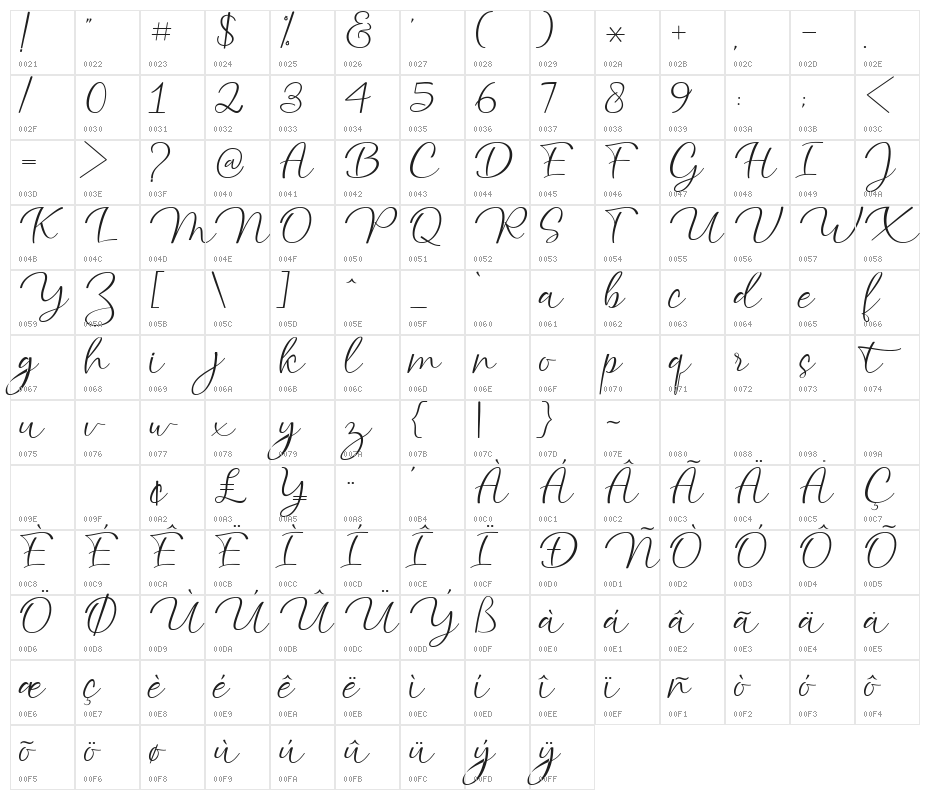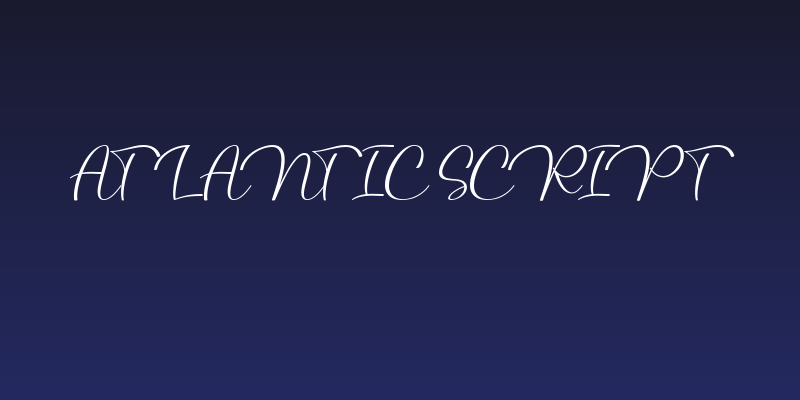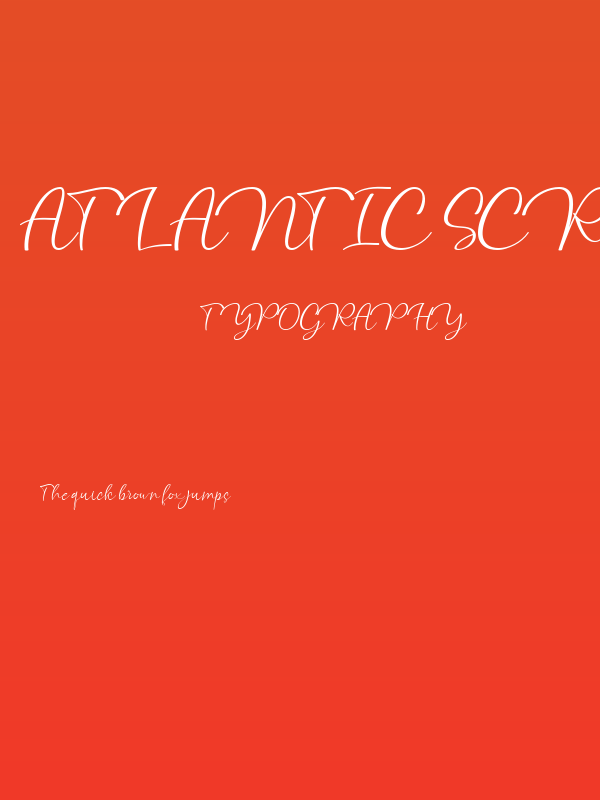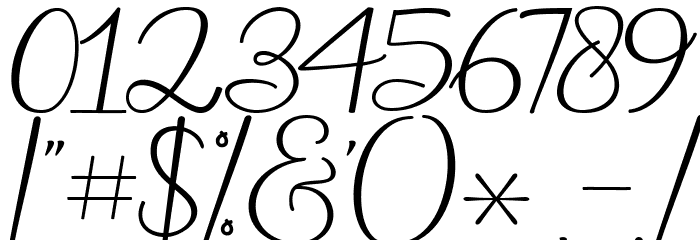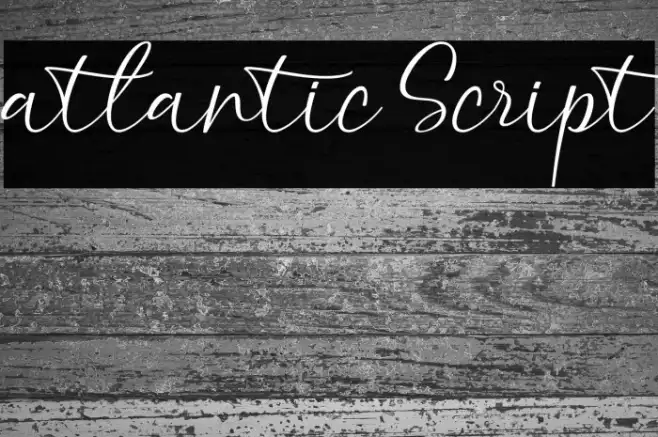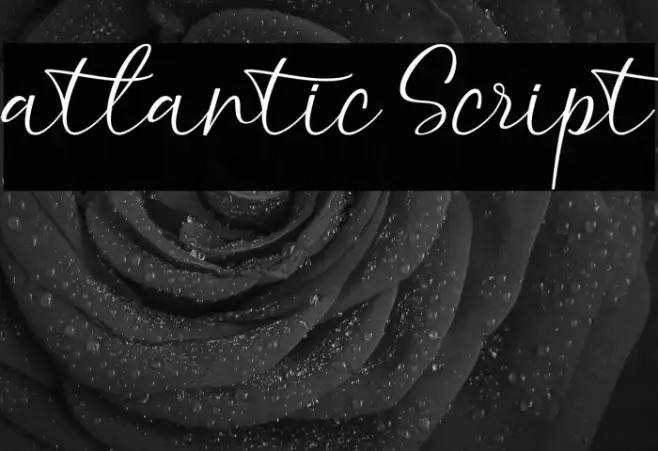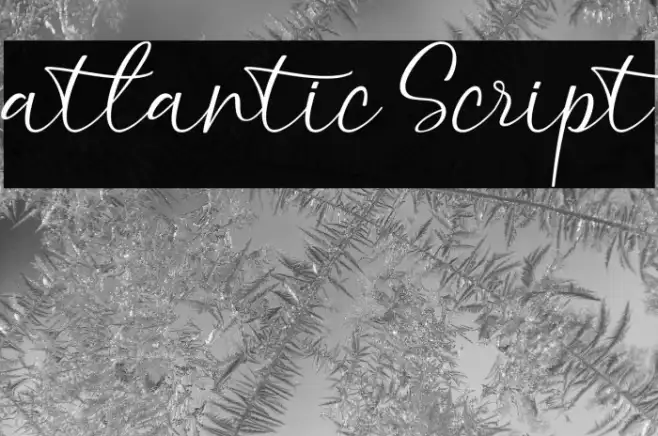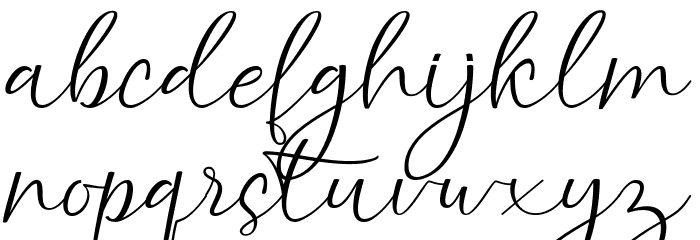
atlantic Script Font
atlantic Script Description
This elegant script font features fluid, cursive strokes that mimic the natural flow of handwriting. The uppercase letters are characterized by their graceful loops and swirls, while the lowercase letters maintain a consistent, flowing style. The numerals are distinct yet harmonize well with the overall script aesthetic. Special characters are thoughtfully designed to complement the alphabet, adding versatility to the font. The font's delicate lines and sophisticated curves make it ideal for projects that require a touch of elegance and personal flair.
| Proposed Projects | Ideal for wedding invitations, greeting cards, branding, and elegant logo designs. |